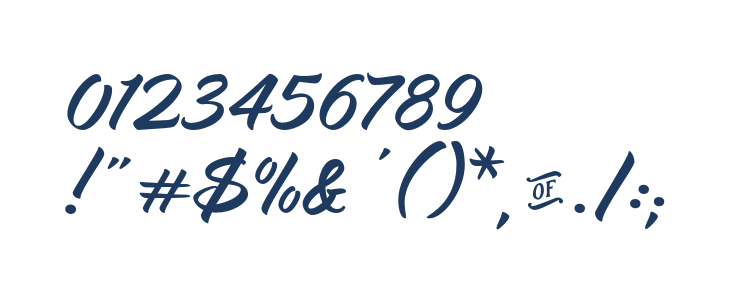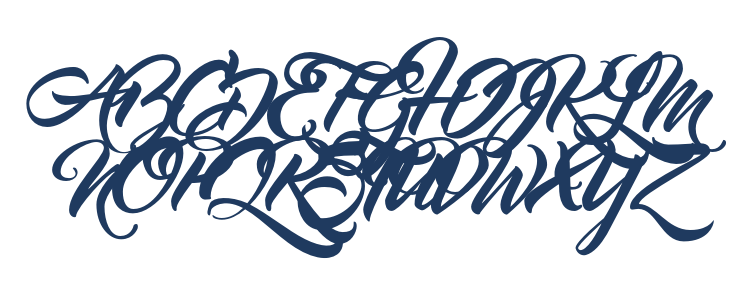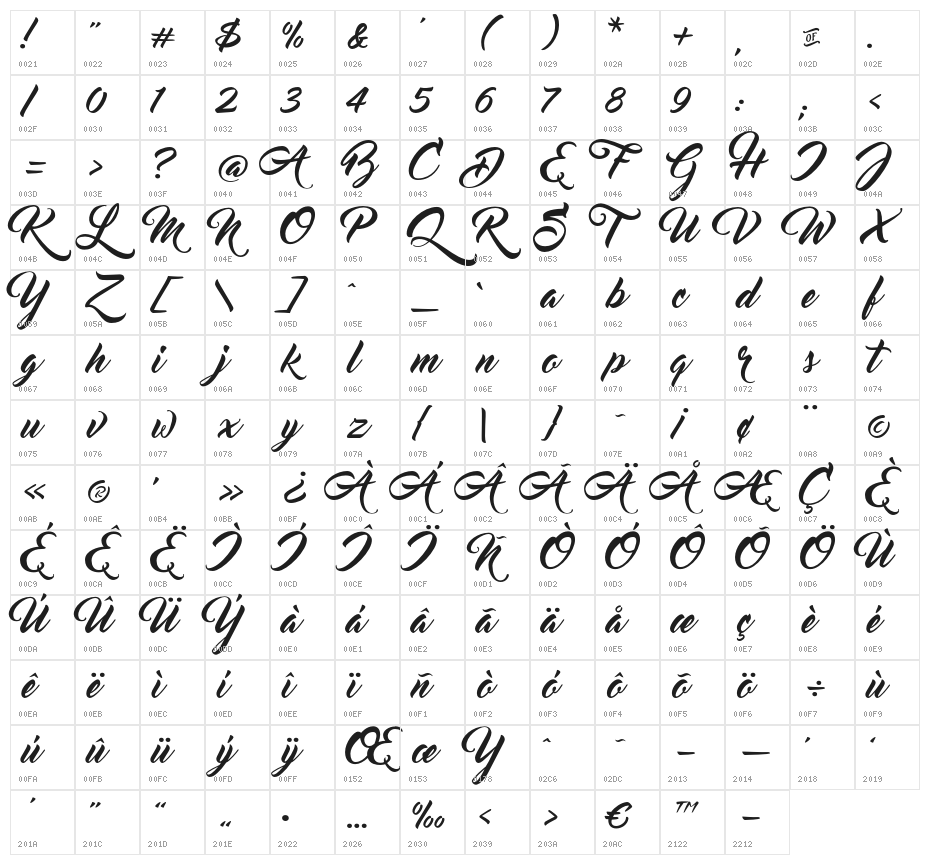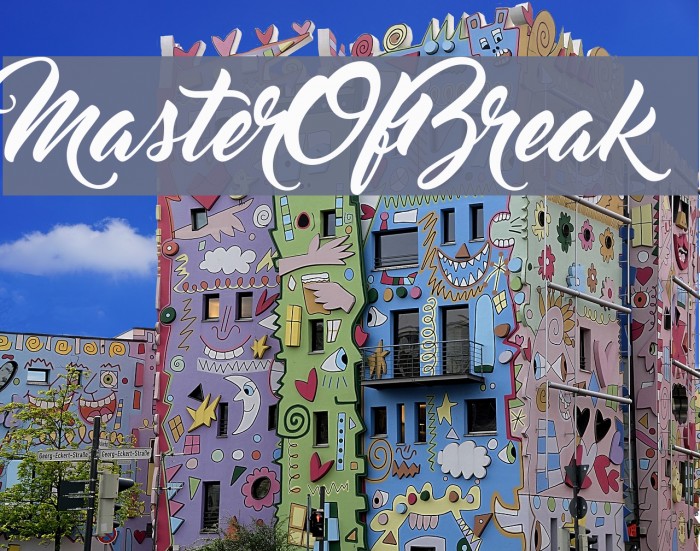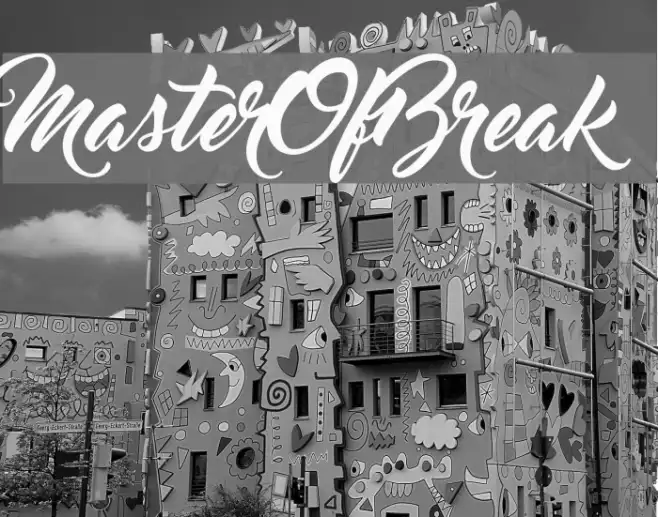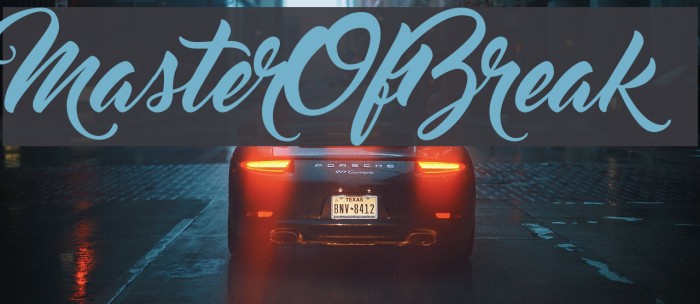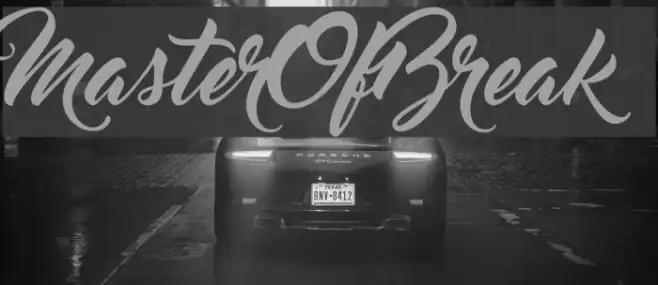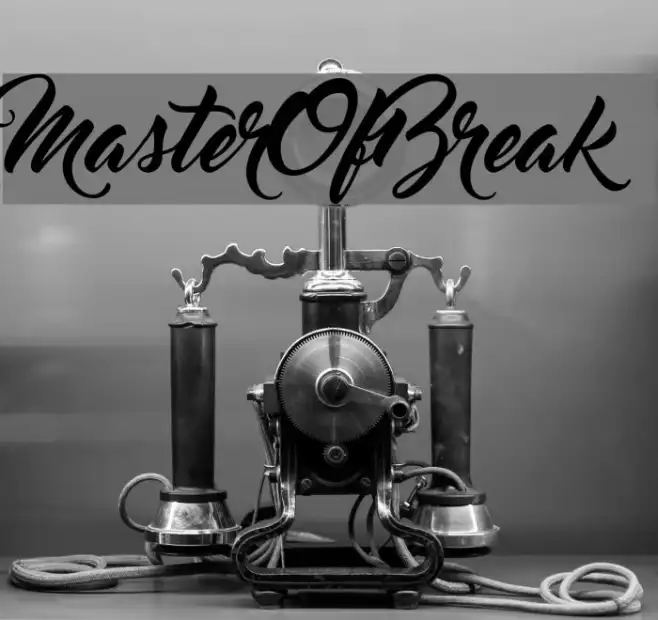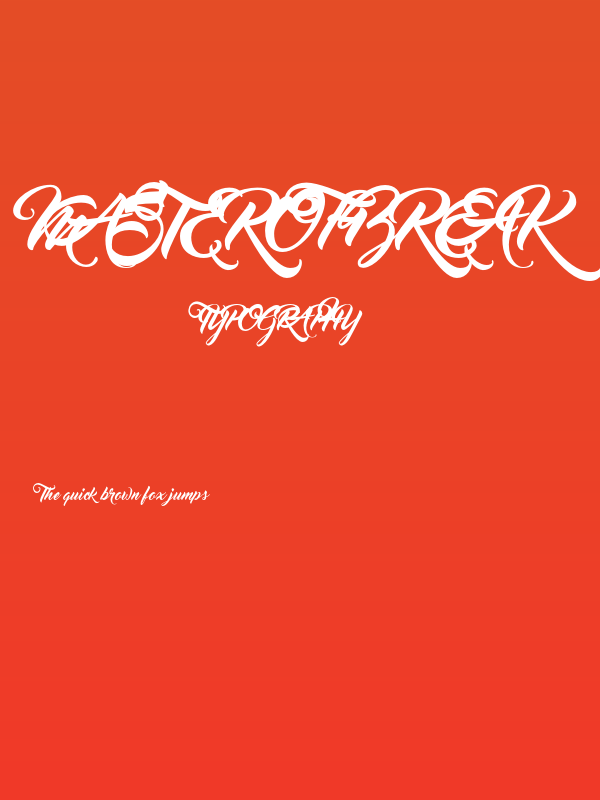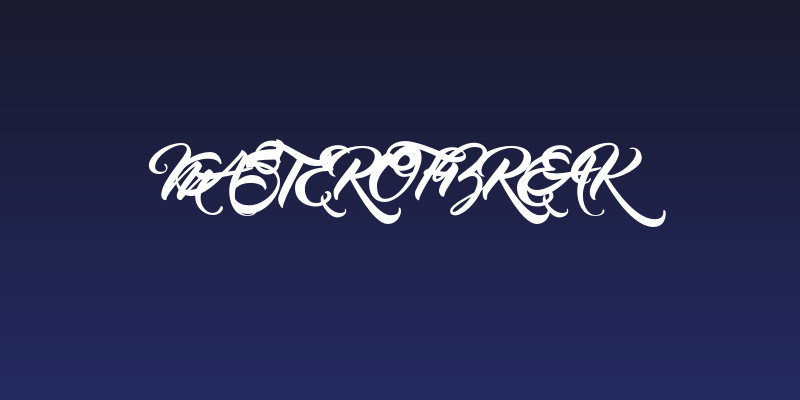
MasterOfBreak Font
MasterOfBreak Description
This font exudes a dynamic and expressive style, characterized by its flowing, cursive script that mimics the fluidity of handwriting. The letters are elegantly connected, with sweeping curves and flourishes that add a sense of movement and grace. The uppercase letters are particularly ornate, featuring intricate loops and swirls, while the lowercase letters maintain a more consistent and readable form. The numbers and special characters are designed to match the overall aesthetic, ensuring a cohesive look across all text. This font is perfect for projects that require a personal touch or a sense of elegance and sophistication.